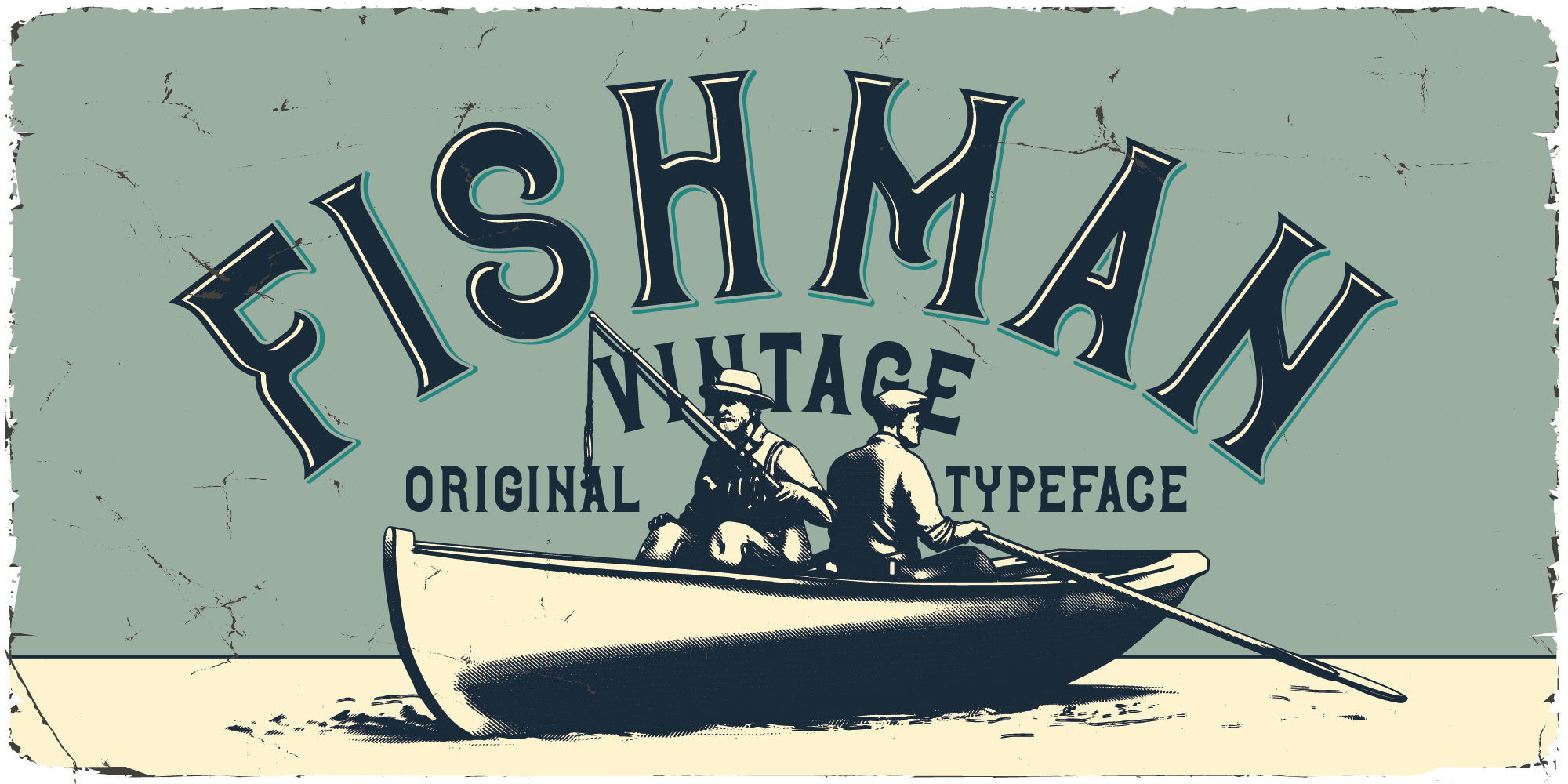
Fishman Font is perfect for fishing charter companies, seafood restaurants, marine supply stores, angling equipment brands, fishing tournament promotions, coastal tackle shops, fisherman's markets, aquaculture businesses, and any project requiring typography with authentic fishing heritage and maritime angling sophistication.
What makes Fishman Font exciting is its angling authenticity that captures the patient dedication and skillful expertise of traditional fishing culture with letterforms that embody the weathered wisdom and practical knowledge passed down through generations of experienced anglers and commercial fishermen. This distinctive typeface reflects the honest craftsmanship of fishing traditions with sturdy construction that mirrors the reliable tools and time-tested techniques required for successful fishing in challenging marine environments. The font's fishing character and maritime sophistication make it perfect for brands celebrating angling heritage, sustainable fishing practices, and the deep connection between human communities and marine ecosystems.
The Fishman Font family includes regular and bold weights, featuring complete uppercase and lowercase alphabets, numerals, punctuation marks, and fishing-inspired design elements. The font maintains consistent maritime elegance throughout all weights while ensuring excellent readability for both commanding headlines and detailed fishing text applications in marine and outdoor contexts.
Whether you're designing for fishing industry businesses, creating angling event materials, or developing maritime branding with fishing heritage aesthetics, Fishman Font Free Download delivers unmatched fishing authority and maritime sophistication to your projects. This exceptional typeface transforms ordinary text into expressions of angling expertise that honor the traditions of fishing culture and the sustainable relationship between humans and marine resources. The font's fishing character makes it ideal for charter boats, fishing equipment manufacturers, and seafood industry professionals. Download this remarkable font today and bring the authentic spirit of fishing heritage to your design projects with genuine maritime sophistication and angling tradition excellence.